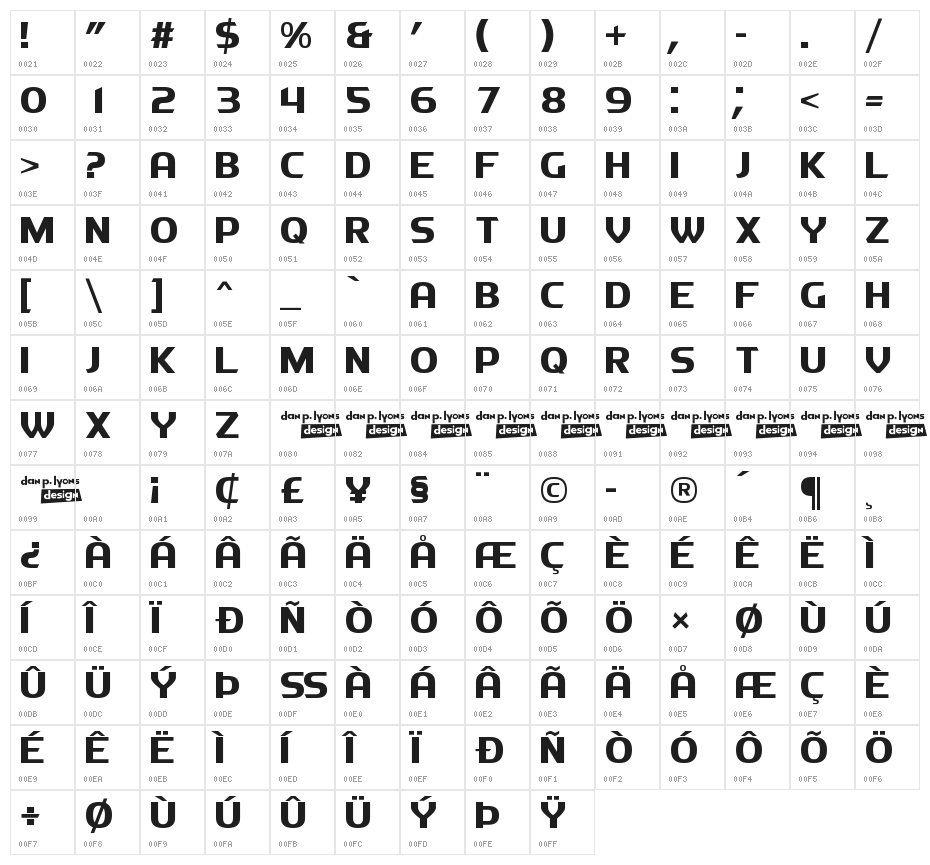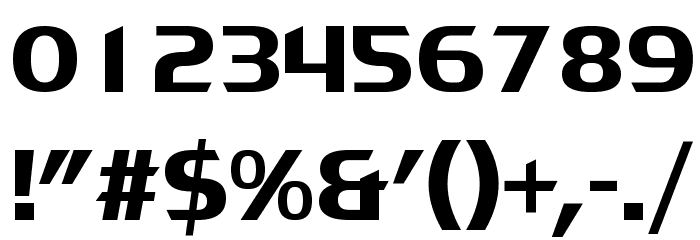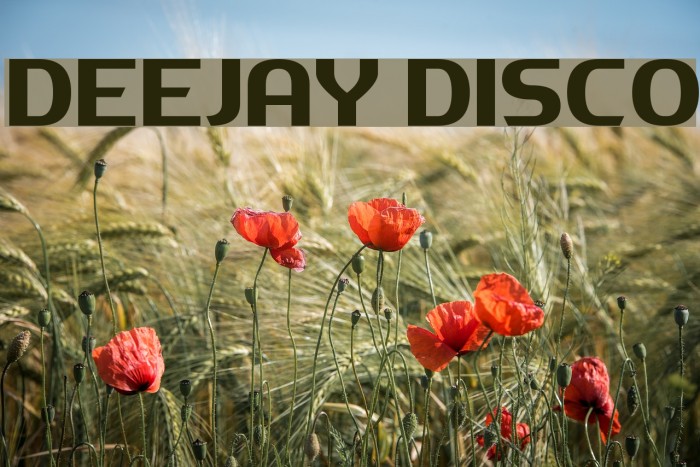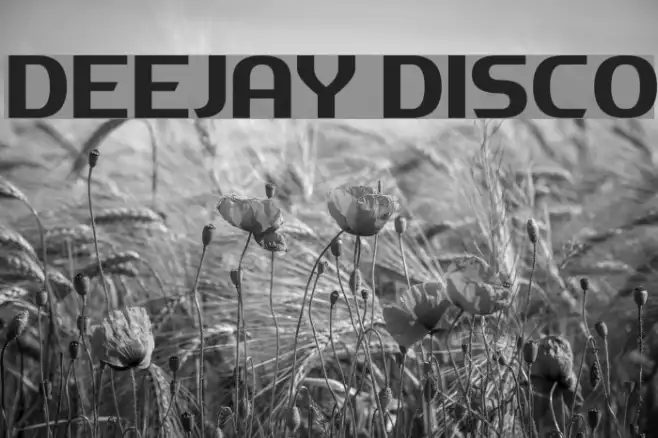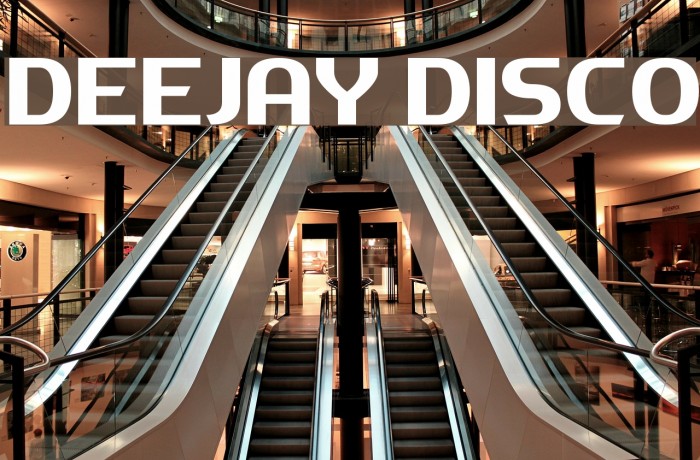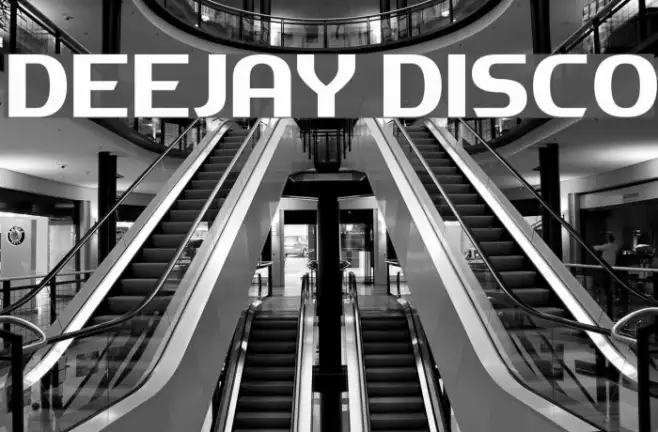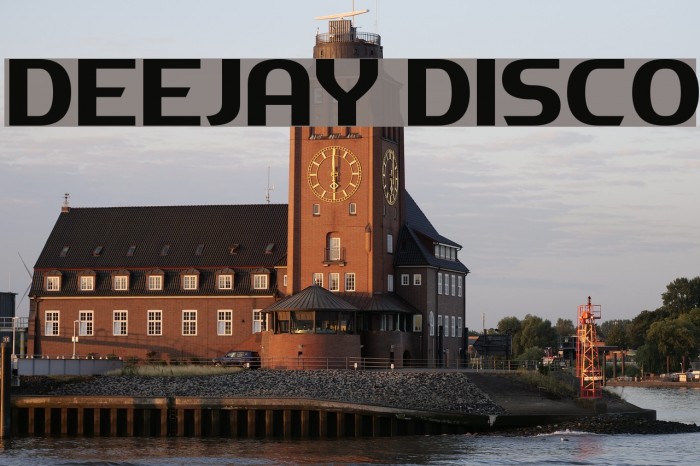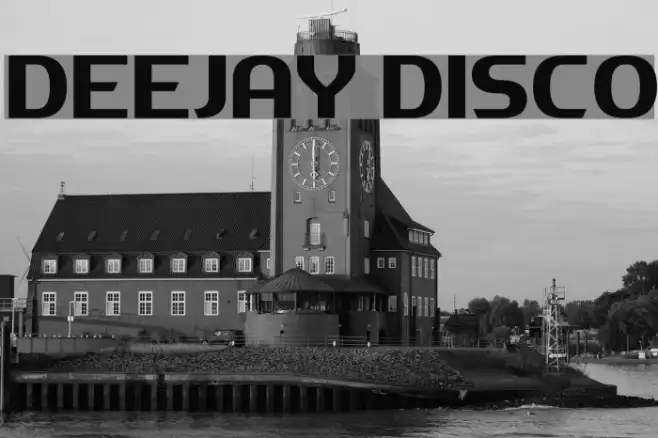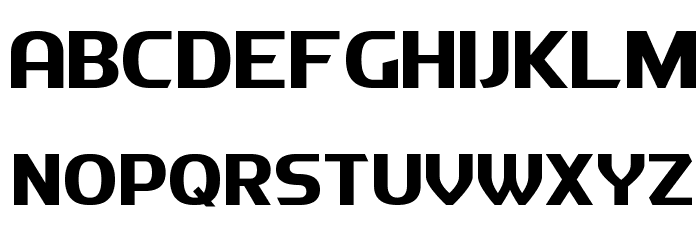
Deejay Disco Font
Deejay Disco Description
This font features a bold and dynamic style with a modern flair. The characters are designed with a strong geometric influence, showcasing thick, even strokes that provide a sense of stability and strength. The uppercase and lowercase letters maintain a consistent width, contributing to a uniform appearance. The numerals are equally robust, ensuring clarity and readability. Special characters are crafted with the same attention to detail, making them suitable for various design needs. The overall style is sleek and contemporary, ideal for projects that require a bold statement.
| Proposed Projects | Ideal for branding, headlines, posters, and any project needing a strong visual impact. |